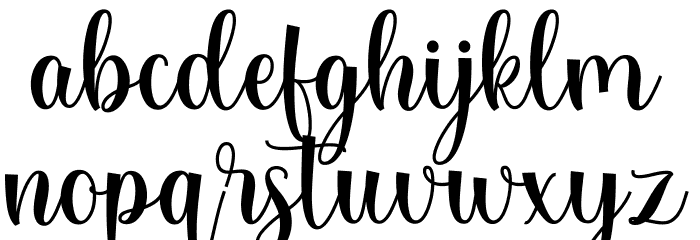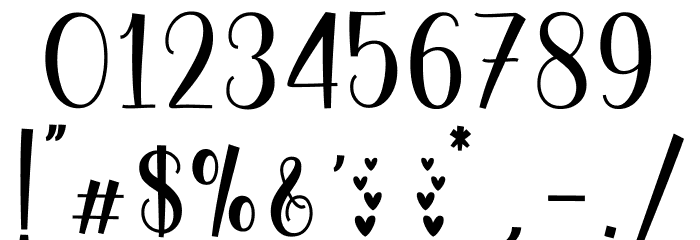
Haghisty_DEMO Font
This font features an elegant and flowing script style with a modern twist. The uppercase letters are adorned with decorative swirls and loops, giving them a sophisticated and artistic flair. The lowercase letters maintain a smooth and connected cursive style, enhancing readability while retaining a sense of elegance. Numbers are clear and bold, matching the overall aesthetic. Special characters are creatively designed, adding a playful yet refined touch. This font is perfect for projects that require a blend of creativity and sophistication, such as wedding invitations, branding, and artistic designs.
An elegant script font with decorative swirls and modern flair.
- Proposed Projects: Ideal for wedding invitations, branding, artistic designs, and elegant stationery.
- Category: Script
- Use Case: Headlines, Logos, Invitations